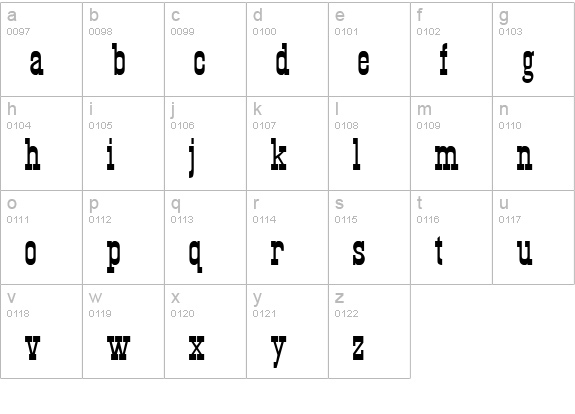
KyhotaOne Font Details
Introducing KyhotaOne font, a modern and stylish typeface that is perfect for a wide range of design projects. This elegant font features sleek lines and a contemporary feel, making it ideal for logos, branding, posters, and more. With its unique character shapes and clean aesthetic, KyhotaOne font is sure to make your designs stand out. Whether you're working on a website, brochure, or social media graphics, this versatile font will add a touch of sophistication to your work. Best of all, KyhotaOne font is completely free to use! You can download this font for free at FontsMarket.com and start incorporating it into your projects today. Don't miss out on this opportunity to elevate your designs with the beautiful KyhotaOne font.